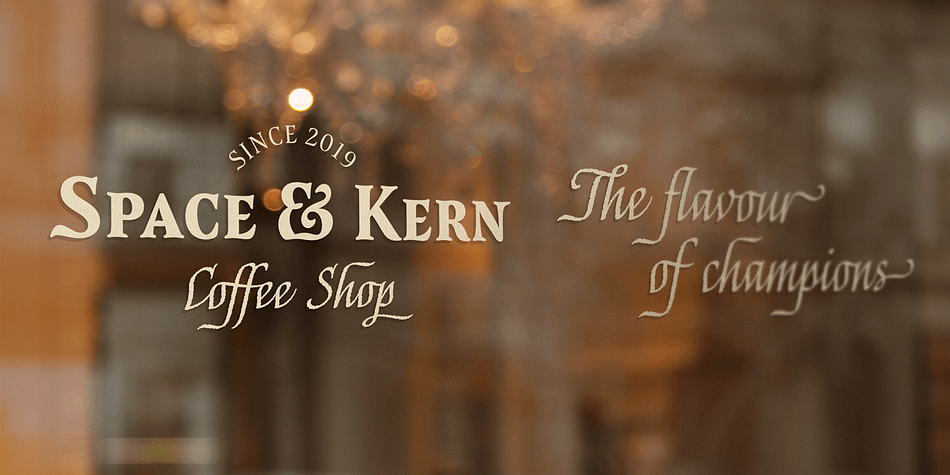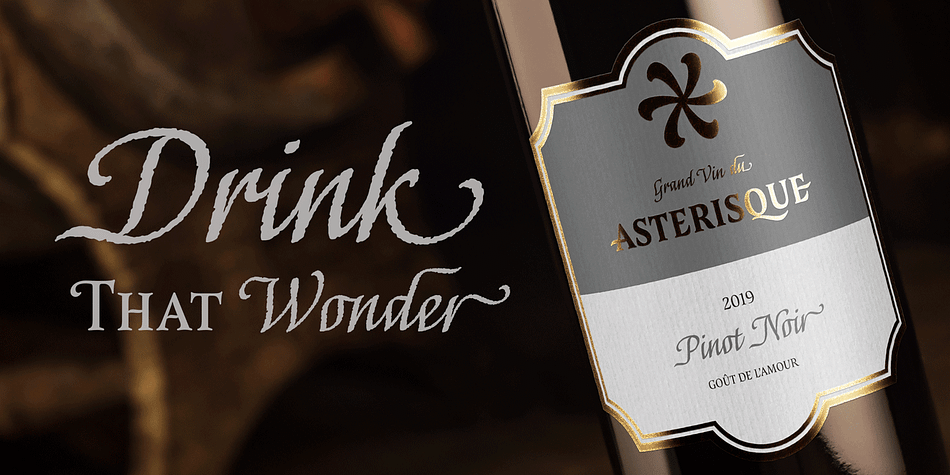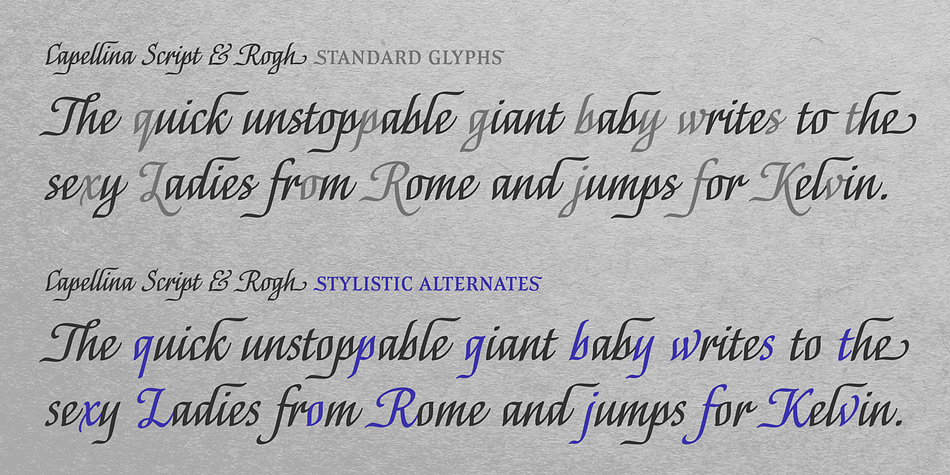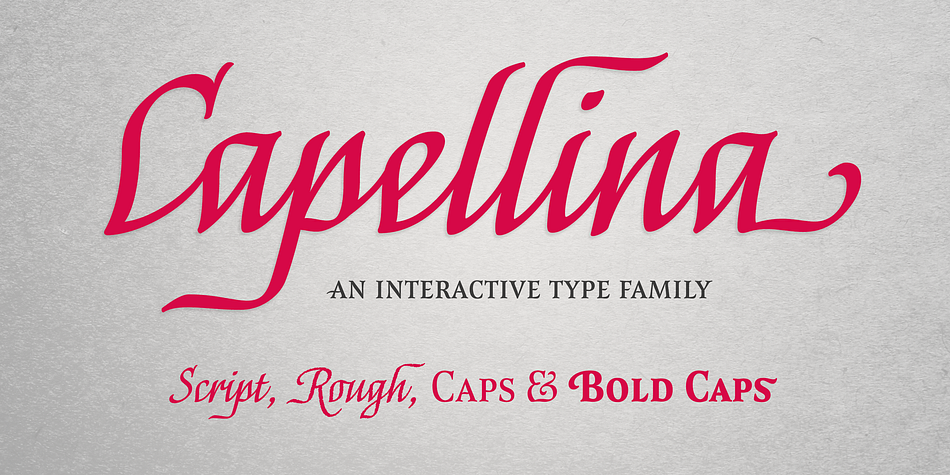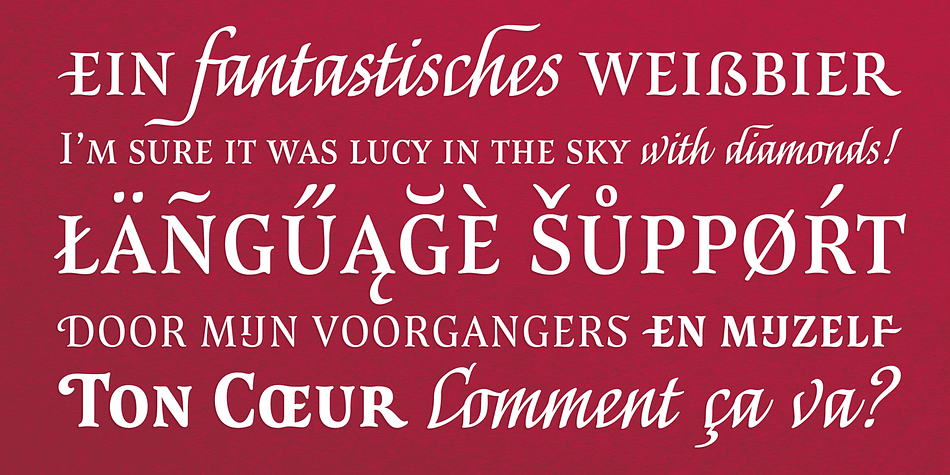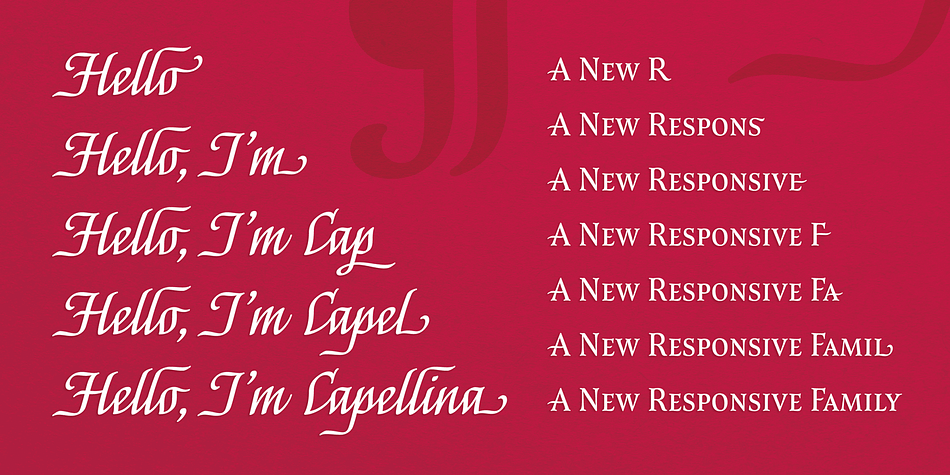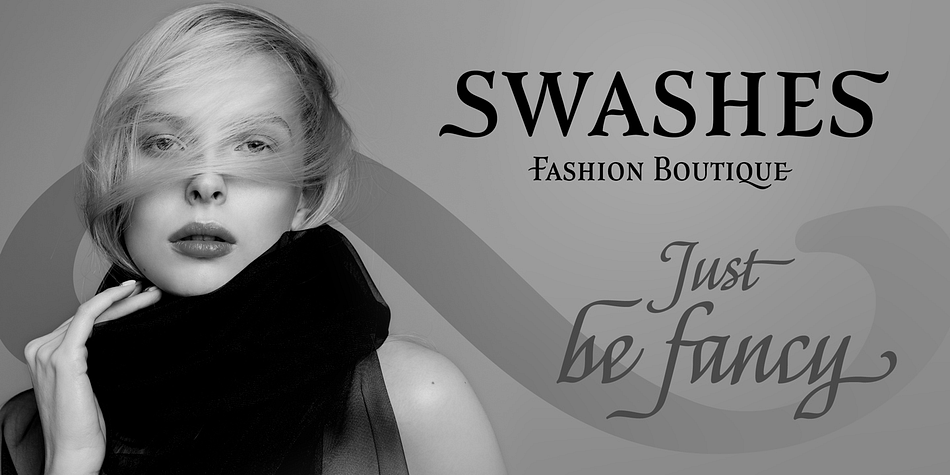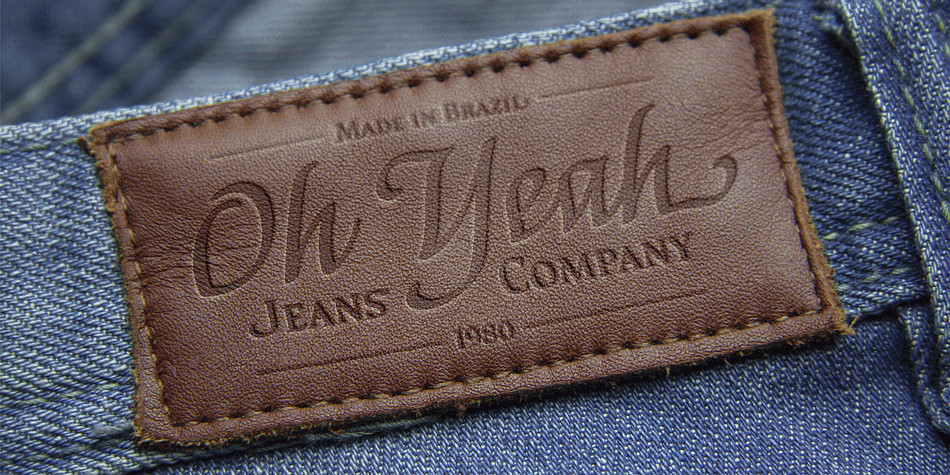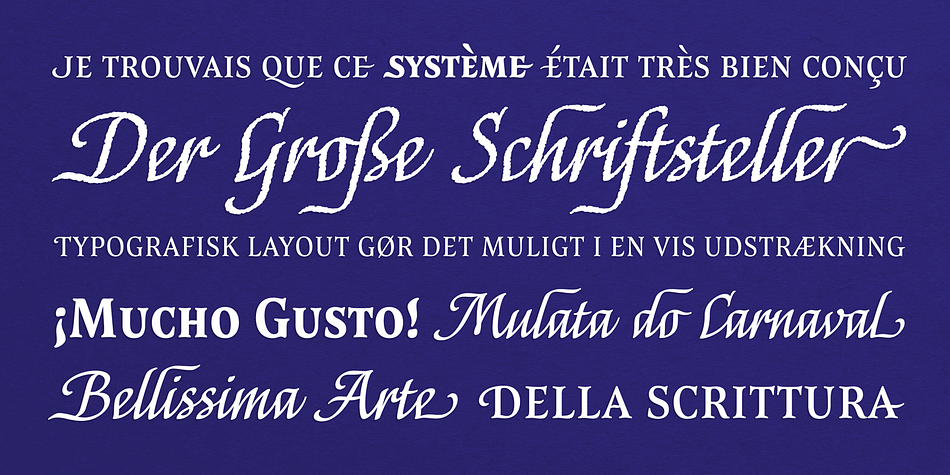
Capellina
Designed by Ricardo Esteves Gomes, Capellina is a display serif and script font family. This typeface has four styles and was published by Outras Fontes.
Capellina family is comprised of four styles – two script fonts and two small caps romans – built to work together in typographic compositions intended to catch the eye. The fonts can be seen as some kind of lettering machines programed to take advantage of swashes (specially at the beginning and and at the end of text lines) and to avoid stroke collisions. Because of the ‘contextual alternates’ programming, the letters will change while you’re writing. Just use any OpenType-compatible software and the font’s algorithm will do the rest. In Capellina Script and Capellina Rough you can also use the stylistic alternates / stylistic sets feature if you want to explore some extra letterforms.